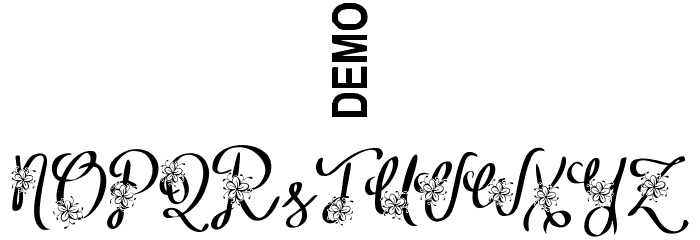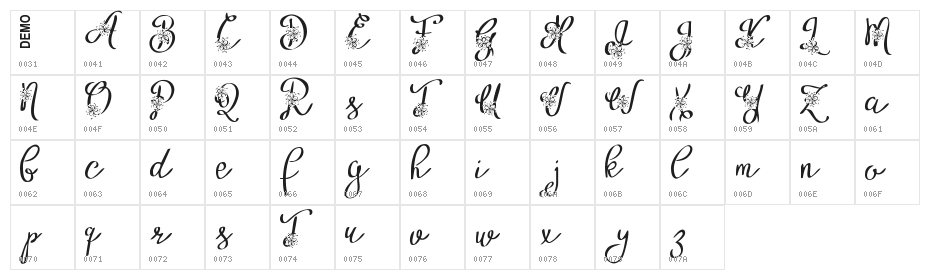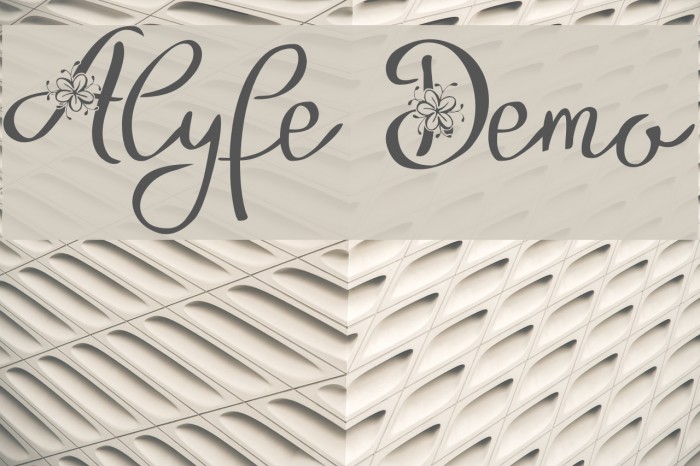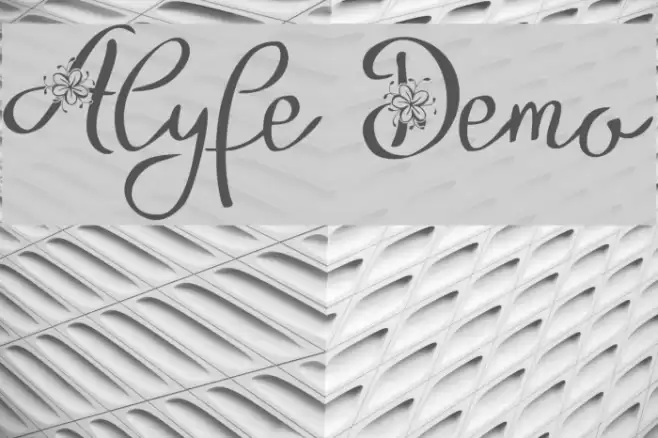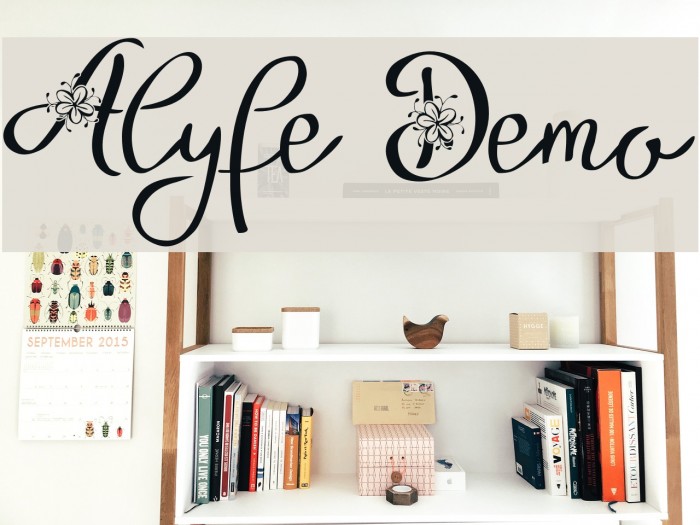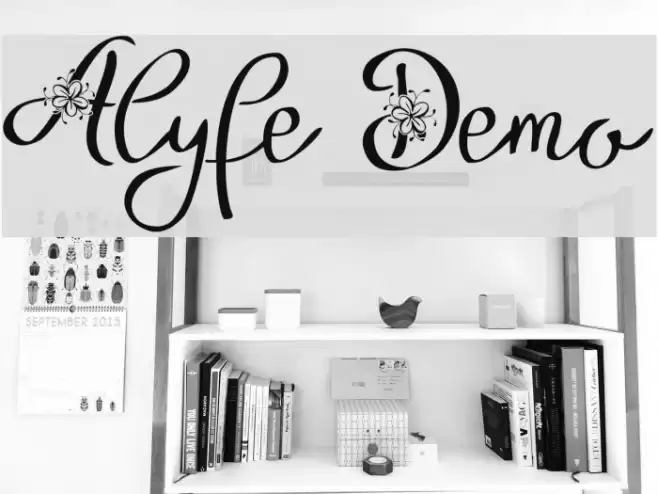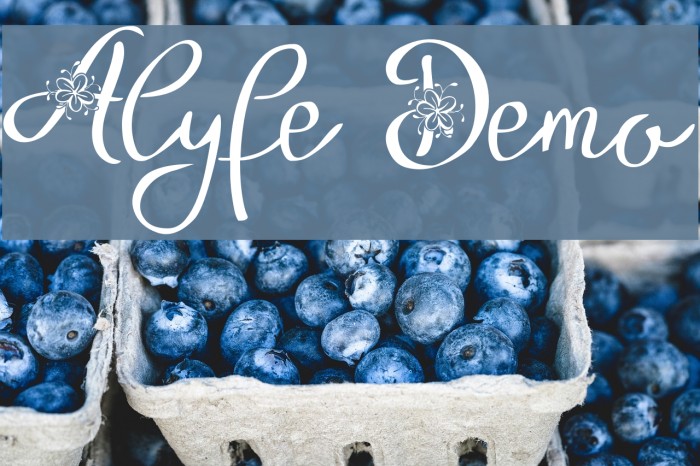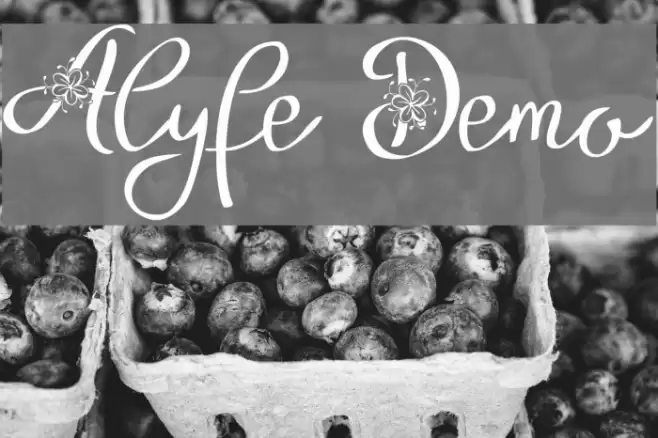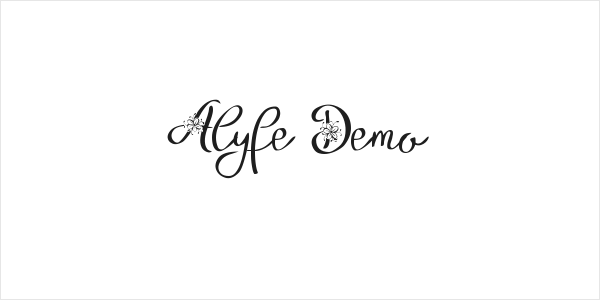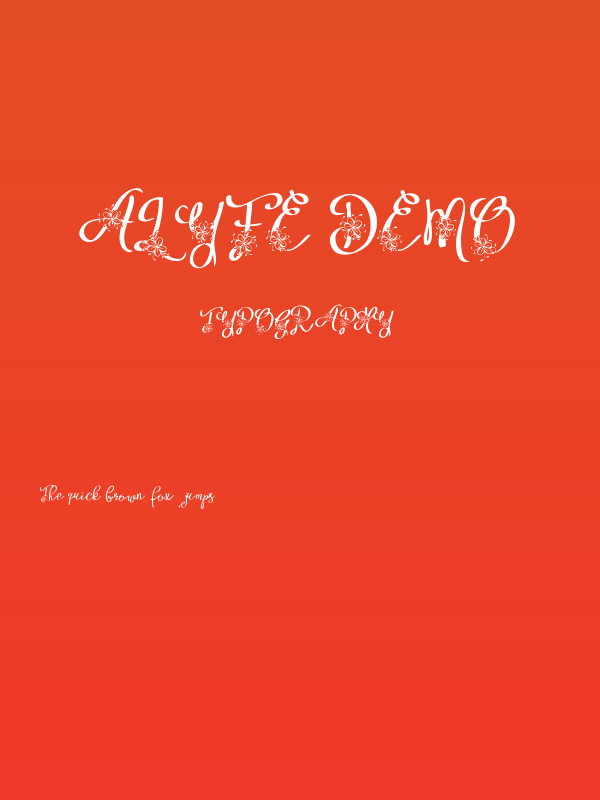
Alyfe Demo Font
Alyfe Demo Description
This font features an elegant and decorative script style, characterized by its flowing, cursive letterforms and intricate floral embellishments. The uppercase letters are adorned with delicate floral motifs, adding a whimsical and artistic touch. The lowercase letters maintain a smooth and fluid connection, enhancing the script's graceful appearance. The overall design is highly ornamental, making it suitable for creative and expressive projects. Its unique style is both eye-catching and sophisticated, ideal for making a statement in design work.
| Use Case | Logos, Invitations, Decorative Text |
| Proposed Projects | Ideal for wedding invitations, greeting cards, decorative posters, and branding projects that require a touch of elegance and creativity. |